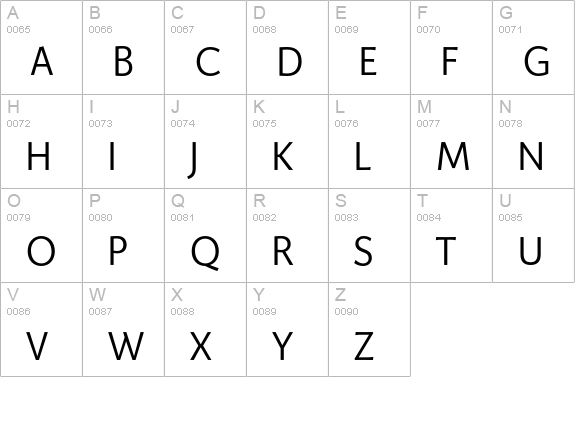
Giacomo font is a modern and stylish typeface that exudes elegance and sophistication. Its clean lines and sleek design make it perfect for a wide range of design projects, from branding to editorial design. The font features a unique blend of sharp angles and soft curves, giving it a distinctive and eye-catching look. One of the best things about Giacomo font is that it is completely free to download at FontsMarket.com. This means that you can easily add this versatile typeface to your font library without having to spend a dime. Whether you're a professional designer looking for a new font to add to your collection or a hobbyist looking to experiment with different typographic styles, Giacomo font is a fantastic choice that won't break the bank. With its modern aesthetic and timeless appeal, Giacomo font is sure to enhance any project it's used in. Download it for free today and see for yourself the impact this stylish typeface can have on your designs.